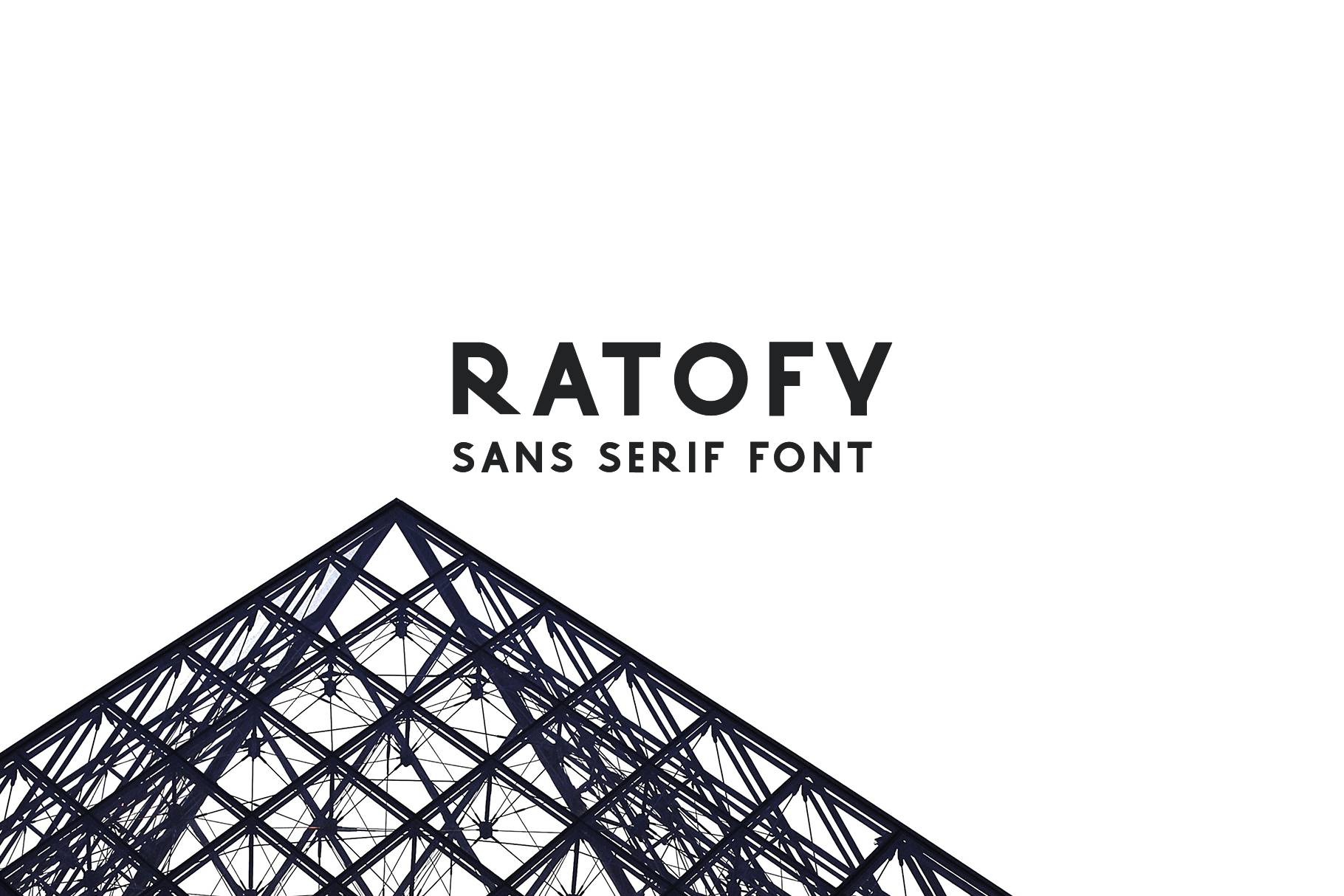
Ratofy - Sans Serif Font
Introducing Ratofy, an modern, simple, and cool sans serif font. So perfect for you who needs a typeface for logo designs, magazine, social media, brochure, and many more.